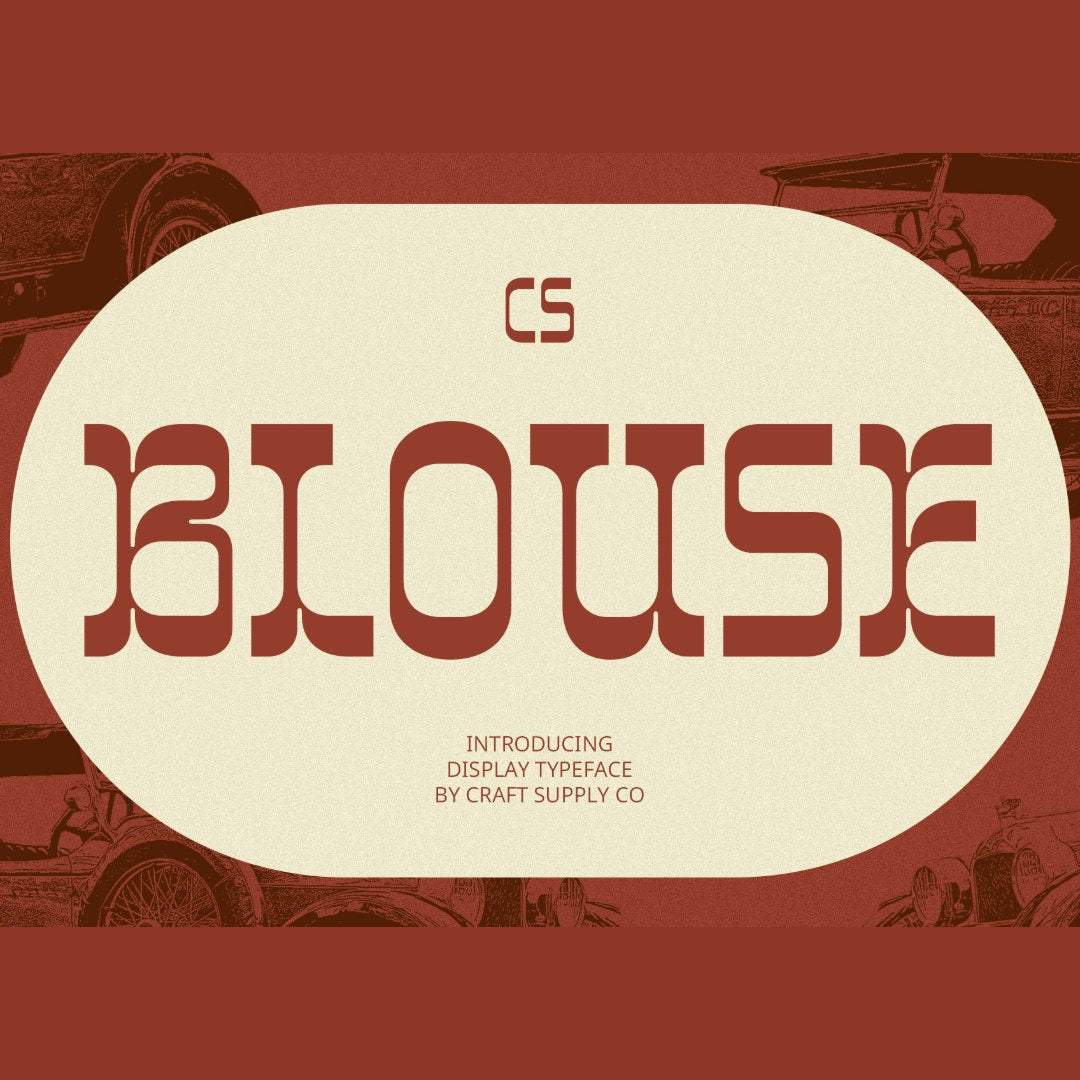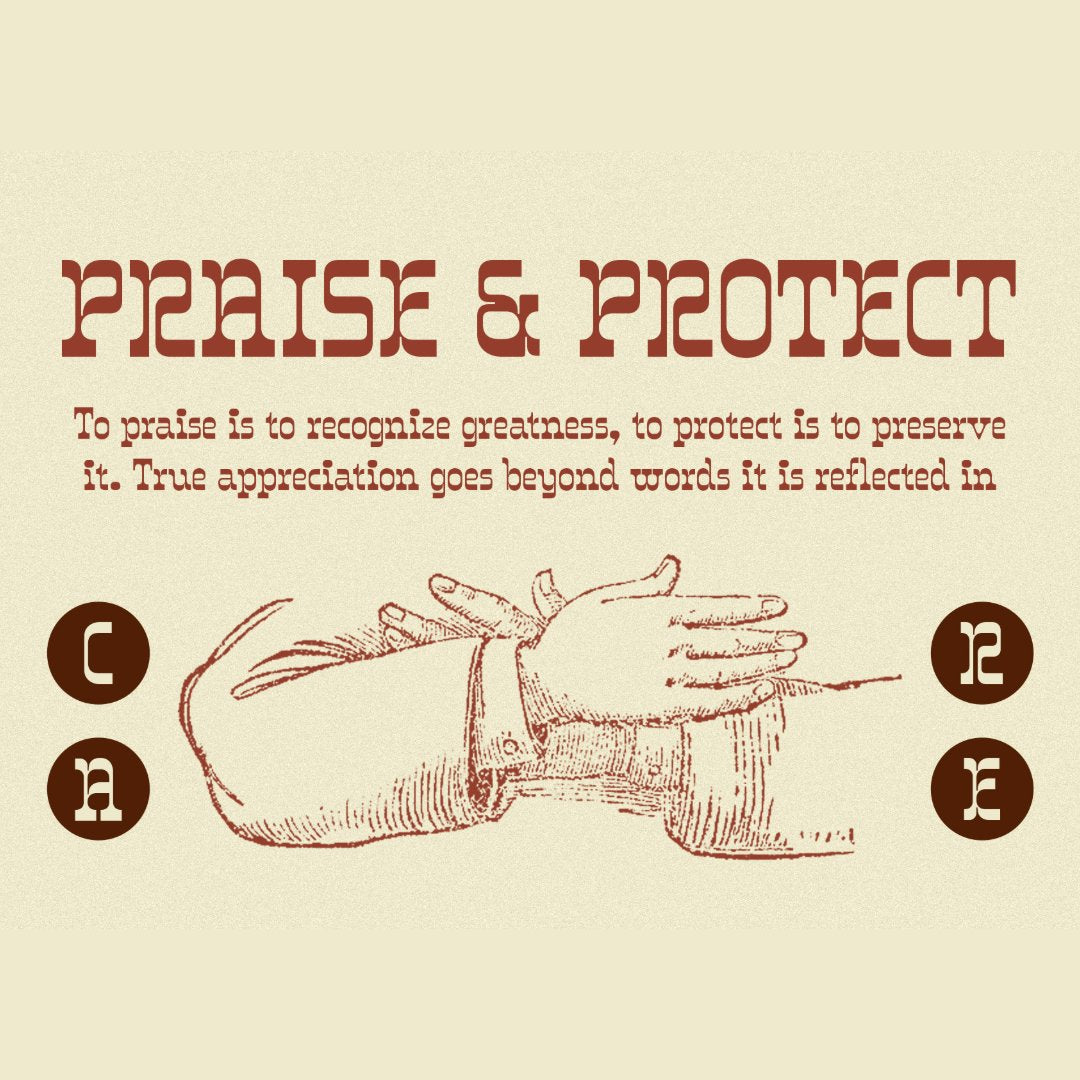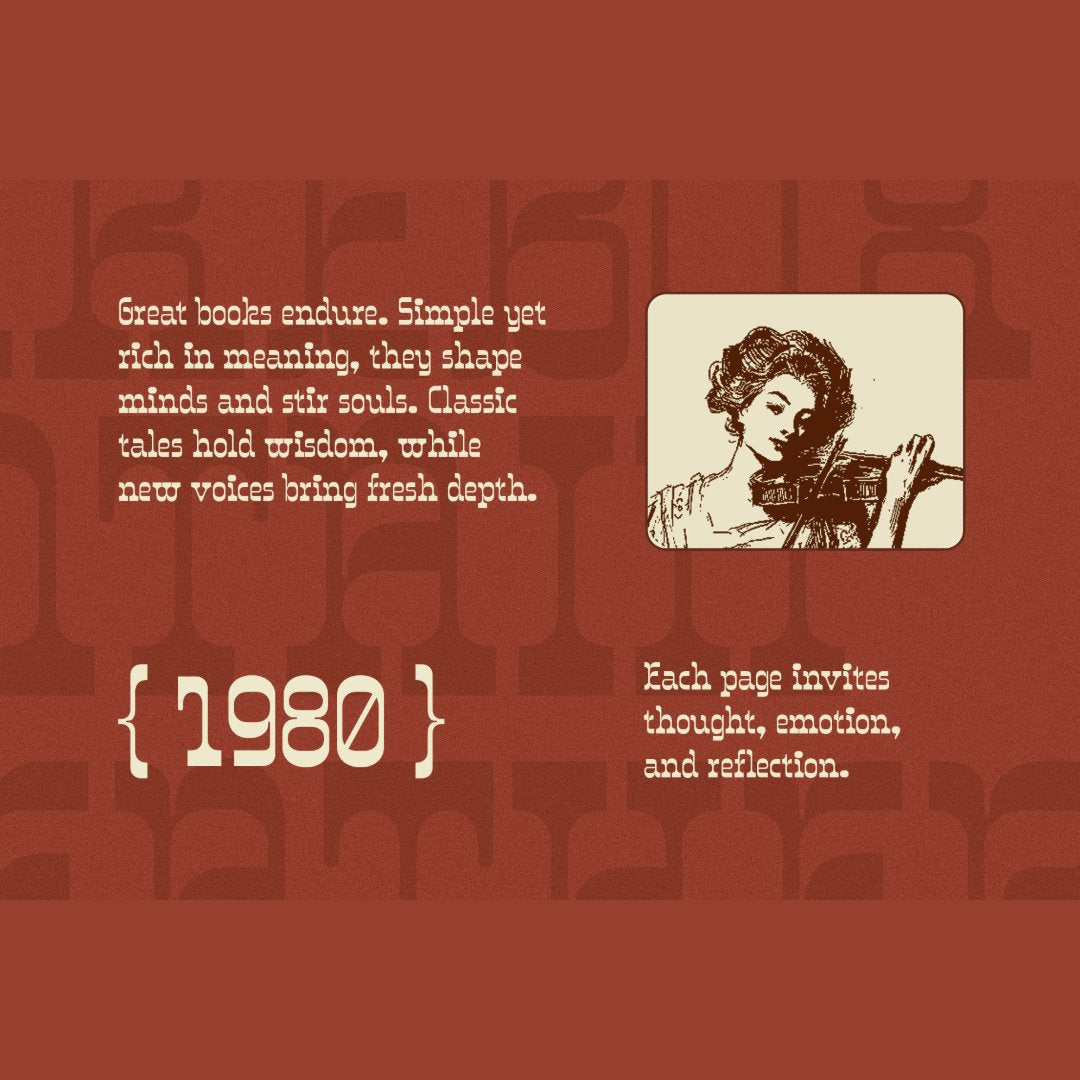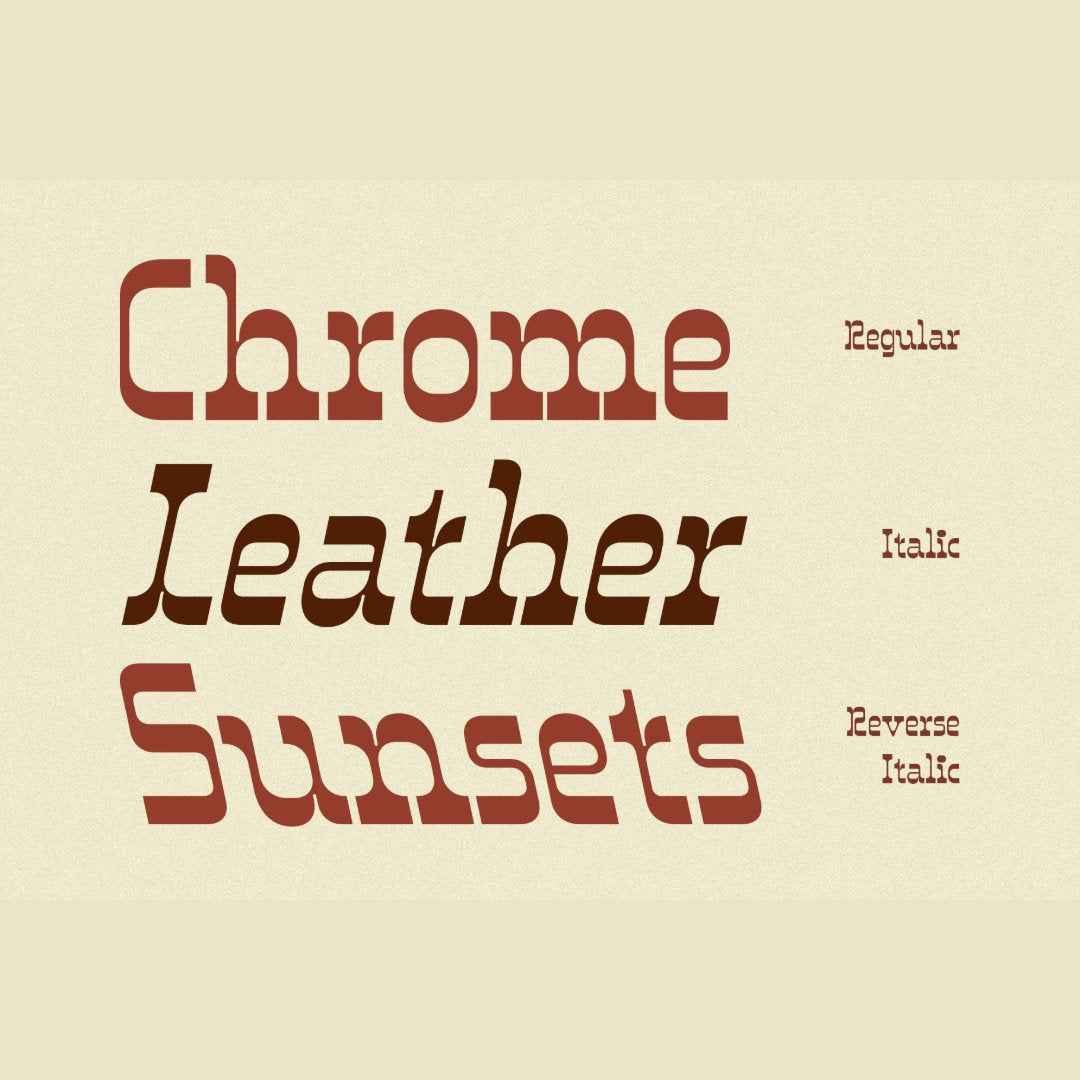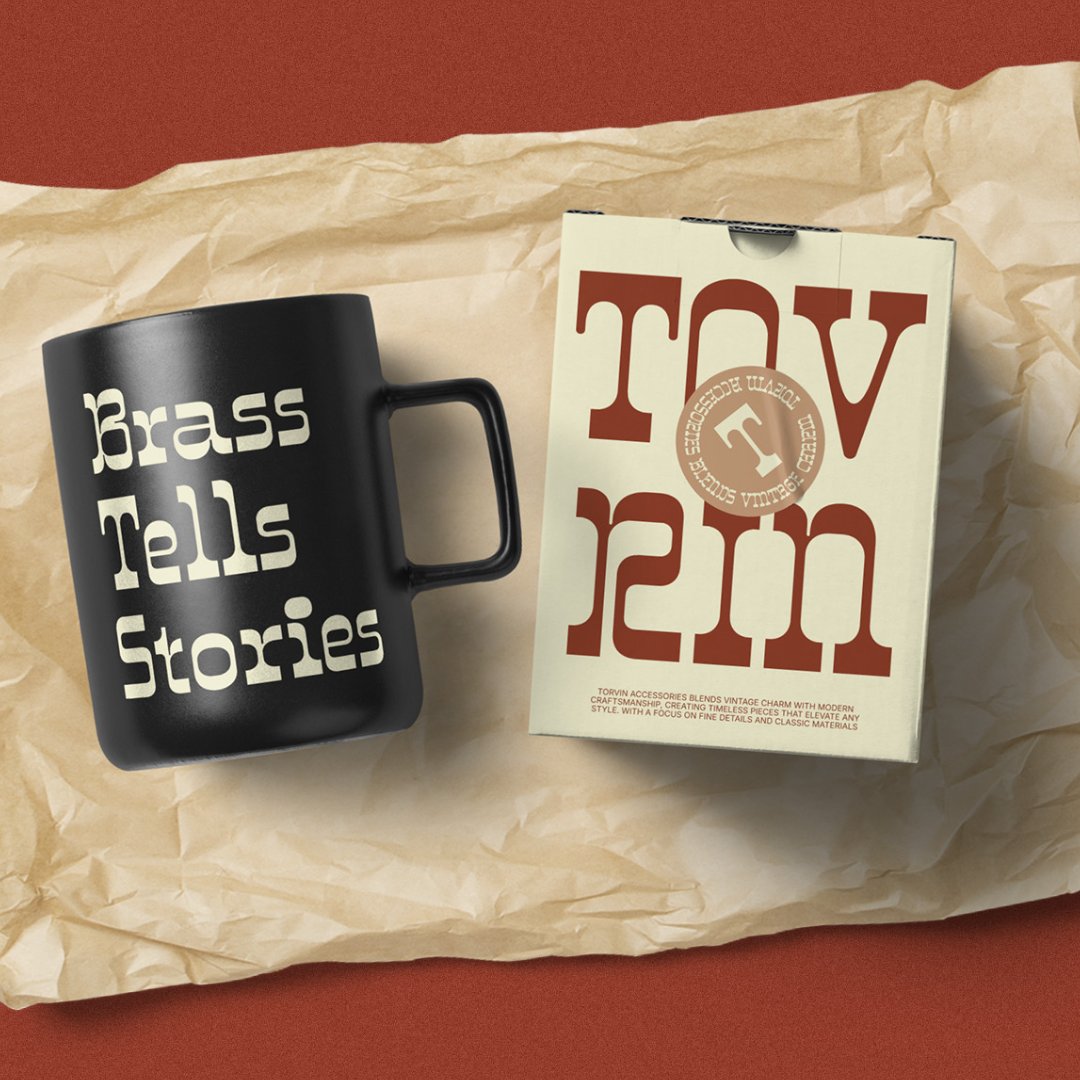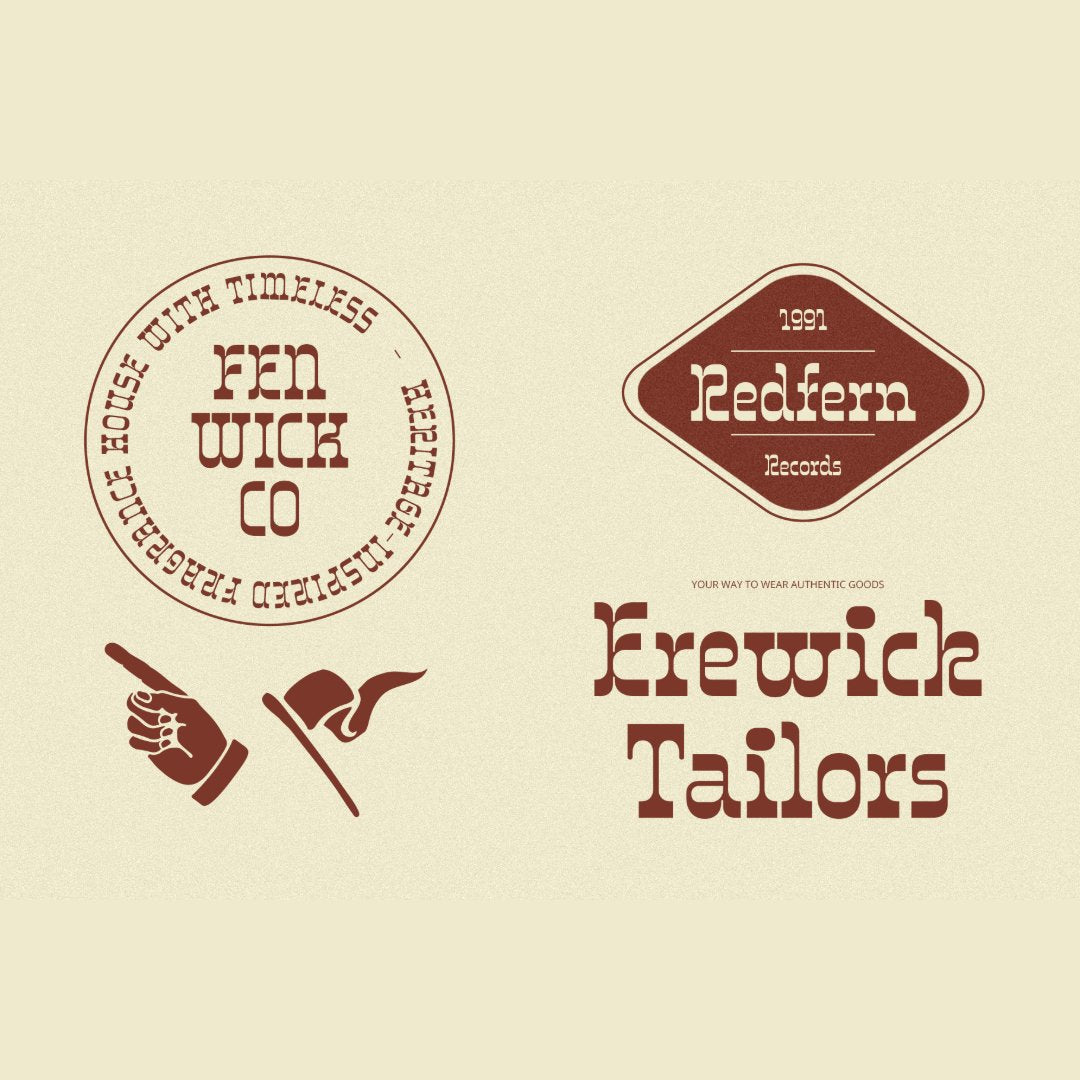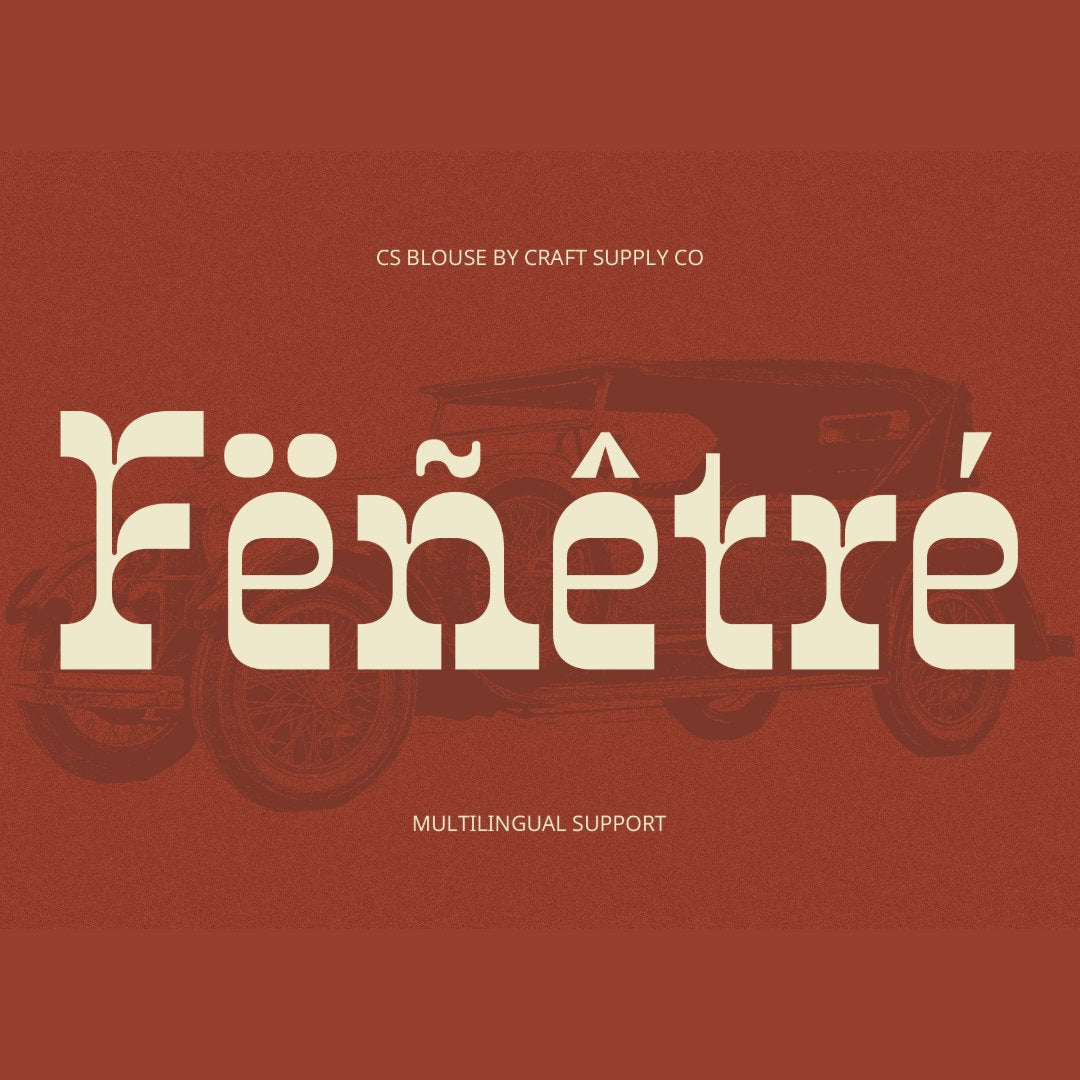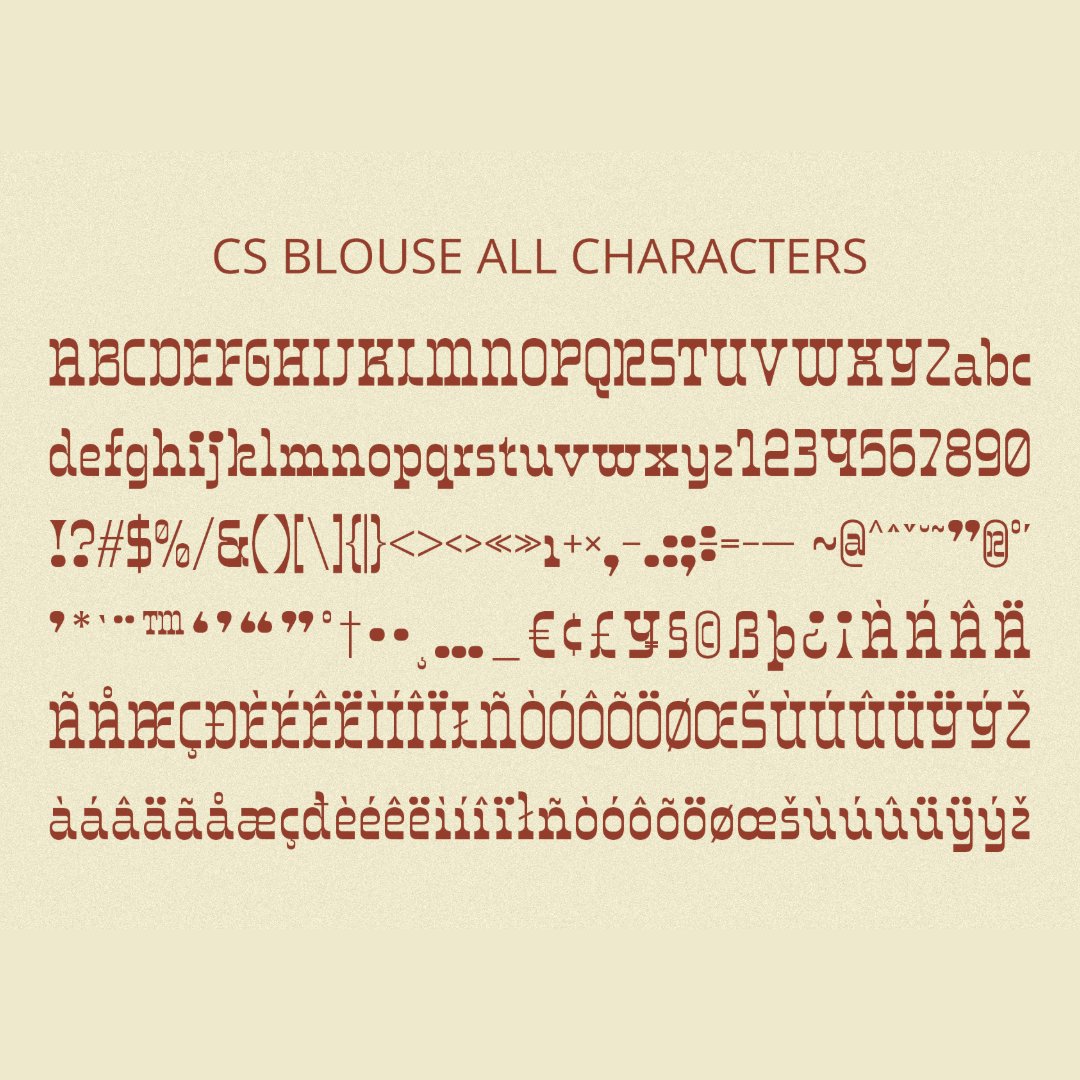
CS Blouse – Reverse Contrast Font
CS Blouse Font – A Bold Reverse Contrast Serif
Unconventional Elegance with Reverse Contrast
CS Blouse is a display serif font that embraces reverse contrast, where the horizontal strokes are thicker than the vertical ones, creating a bold and unconventional aesthetic. This striking contrast technique adds a unique rhythm and flow to the letterforms, making the font both eye-catching and expressive.
Retro Influence with a Modern Edge
Blending vintage inspiration with contemporary appeal, CS Blouse takes cues from classic Western-style typography and mid-century signage, yet refines them into a fresh, modern interpretation. The thick strokes, playful curves, and exaggerated proportions give it a distinctive personality, making it ideal for projects that seek a retro-futuristic charm.
Ideal for Statement Typography
With its bold structure and striking contrast, CS Blouse is designed for statement pieces in branding, posters, magazine headlines, and high-impact advertising. Its strong presence and artistic edge make it well-suited for luxury packaging, event promotions, album covers, and editorial layouts.
Make Your Designs Stand Out
CS Blouse offers a one-of-a-kind typographic experience, merging classic elegance with a modern twist. Its expressive nature and artistic contrast make it an excellent choice for fashion, lifestyle, and creative industries.
CS Blouse Regular
CS Blouse Italic
CS Blouse Reverse Italic
The CS Blouse – Reverse Contrast Font is a bold display serif typeface featuring thicker horizontal strokes than vertical ones, creating a unique reverse contrast aesthetic. It includes three styles: Regular, Italic, and Reverse Italic, combining vintage Western influences with a modern design for a distinctive typographic experience.